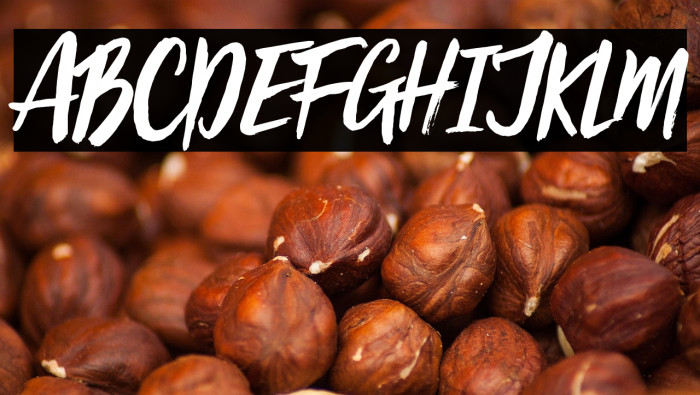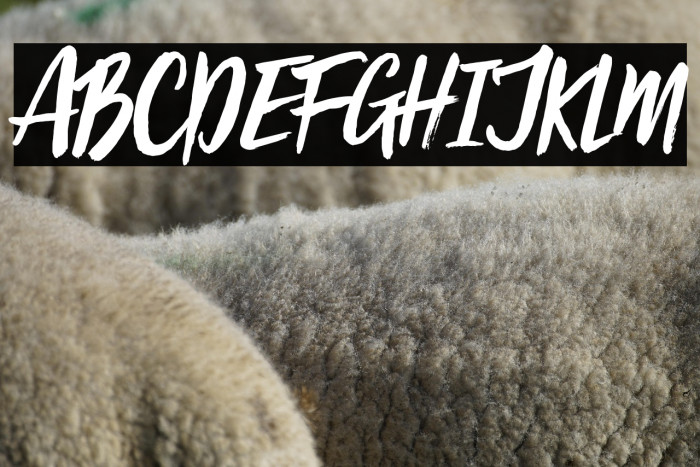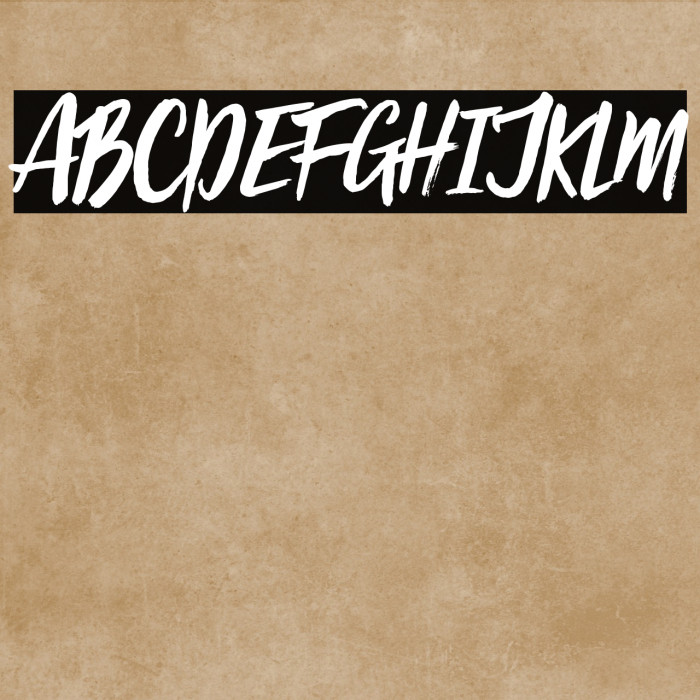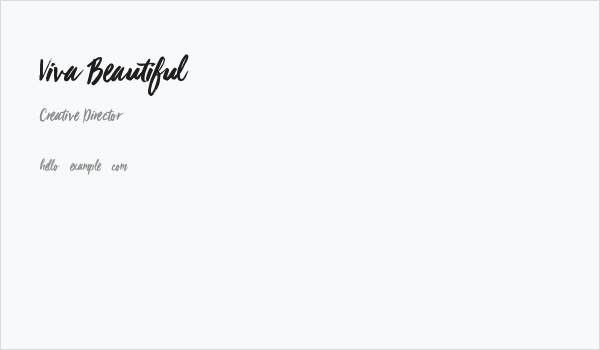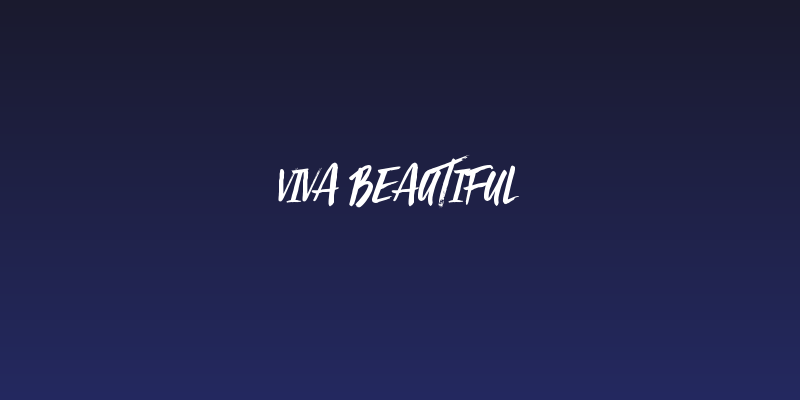
Viva Beautiful Font
Viva Beautiful Description
This font exudes a dynamic and expressive style, characterized by its brush-like strokes and fluid, handwritten appearance. The letters are bold and slightly slanted, giving a sense of movement and energy. The uppercase and lowercase letters maintain a consistent style, with some variations in stroke thickness that add to its artistic flair. The font's organic and slightly irregular forms create a sense of authenticity and creativity, making it ideal for projects that require a personal touch. The overall look is both modern and artistic, suitable for a variety of creative applications.
| Overall Style | Modern, Artistic |
| Proposed Projects | Ideal for branding, posters, invitations, and any design that requires a personal, artistic touch. |